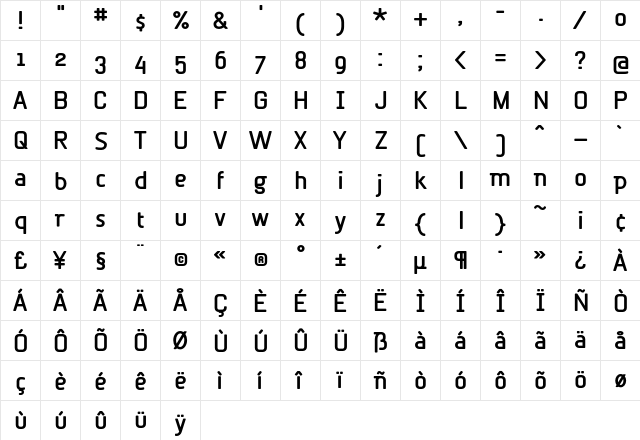
BetaSemi Bold
Design Context for BetaSemi Typeface
BetaSemi takes a measured approach to typography — its balanced proportions and neutral character make it a reliable workhorse for both digital and print work. Its bold stroke weight gives it real presence on the page.